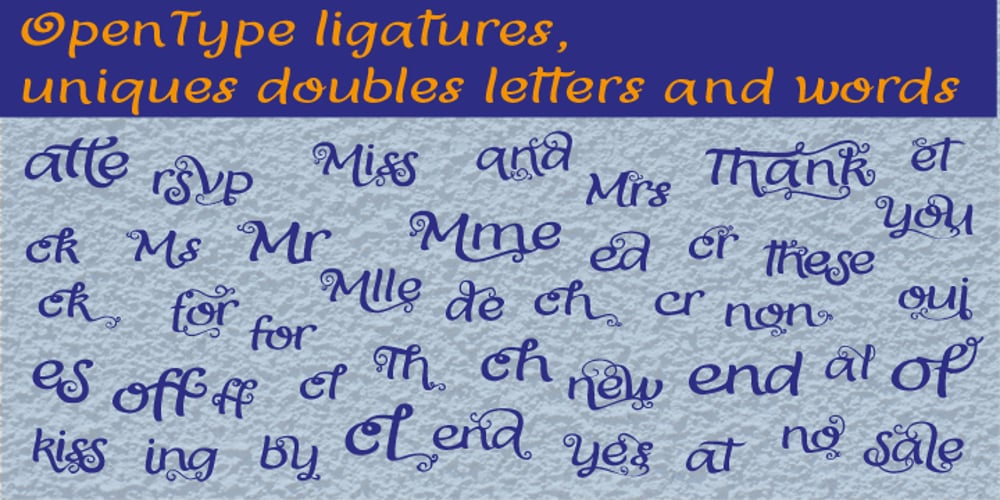
Miss Seshat Font Family was designed by Carine de Wandeleer and published by Eurotypo. Miss Seshat contains 3 styles and family package options. In Egyptian mythology, Seshat was the Ancient Egyptian goddess of wisdom, knowledge, and writing. She was seen as a scribe and record keeper, and her name means she who scrivens, and is credited with inventing writing. Miss Seshat font is a fun, charming and expressive handwritten font with 900 glyphs. They have many advantages of the OpenType futures to choose from: stylistic alternates, contextual alternates, and a full set of standard and discretionary ligatures, Swatches, Beginnings and endings, as a rich set of 120 ornaments, connectors and catch words. Miss Seshat Pro version supports all diacritics for CE languages. They’ve been specially thought to obtain endless possibilities of composition and to help to make each creation unique and interesting. Miss Seshat font can be used in packaging design, children books, advertising, logotypes, greeting cards, web sites and much more.